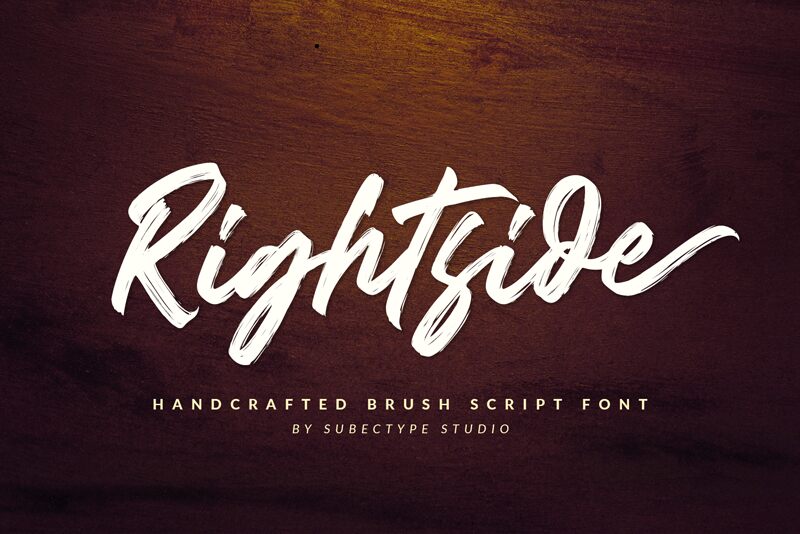
Rightside is a brush font designed by Rangga Singgih Subekti, perfect for those looking to add a touch of artistic flair to their designs. With its semi-light weight, Rightside exudes an effortless elegance that can transform any project into a work of art. This font is ideal for projects that require a handcrafted feel, such as wedding invitations, greeting cards and branding materials for boutique businesses or artisanal products. Its brush style lends itself well to projects that require an organic and natural look, making it the perfect choice for designs that require a touch of whimsy and creativity.